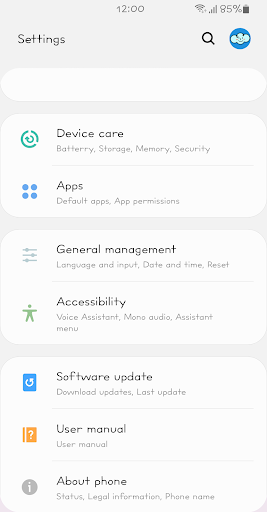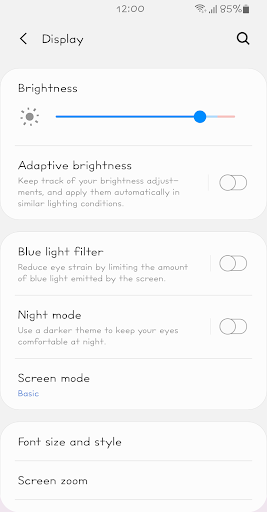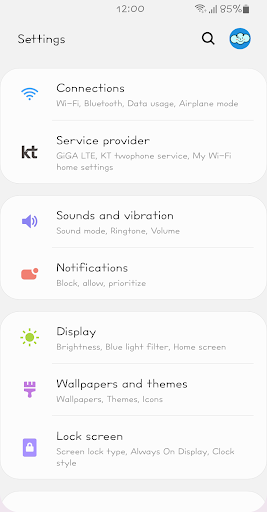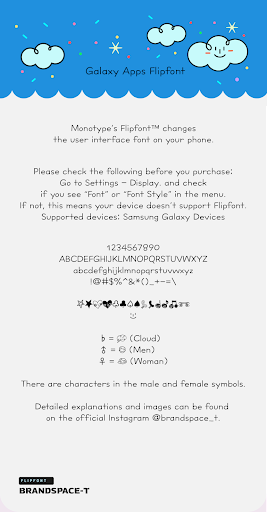
BSTImagination
This typeface is a moist handwriting that expresses a different sense of space with the centerline of the initial consonants slightly down. It's well-aligned, so it's easy to see and easy to read. It's more than imaginable "soon, my, my own brand" BSTImagination. Find cute and lovely Dingbet!
+Hidden special characters ♨ with a pretty smile!
+♭ (Cloud) ♂ (Men) ♀ (Woman) There is!